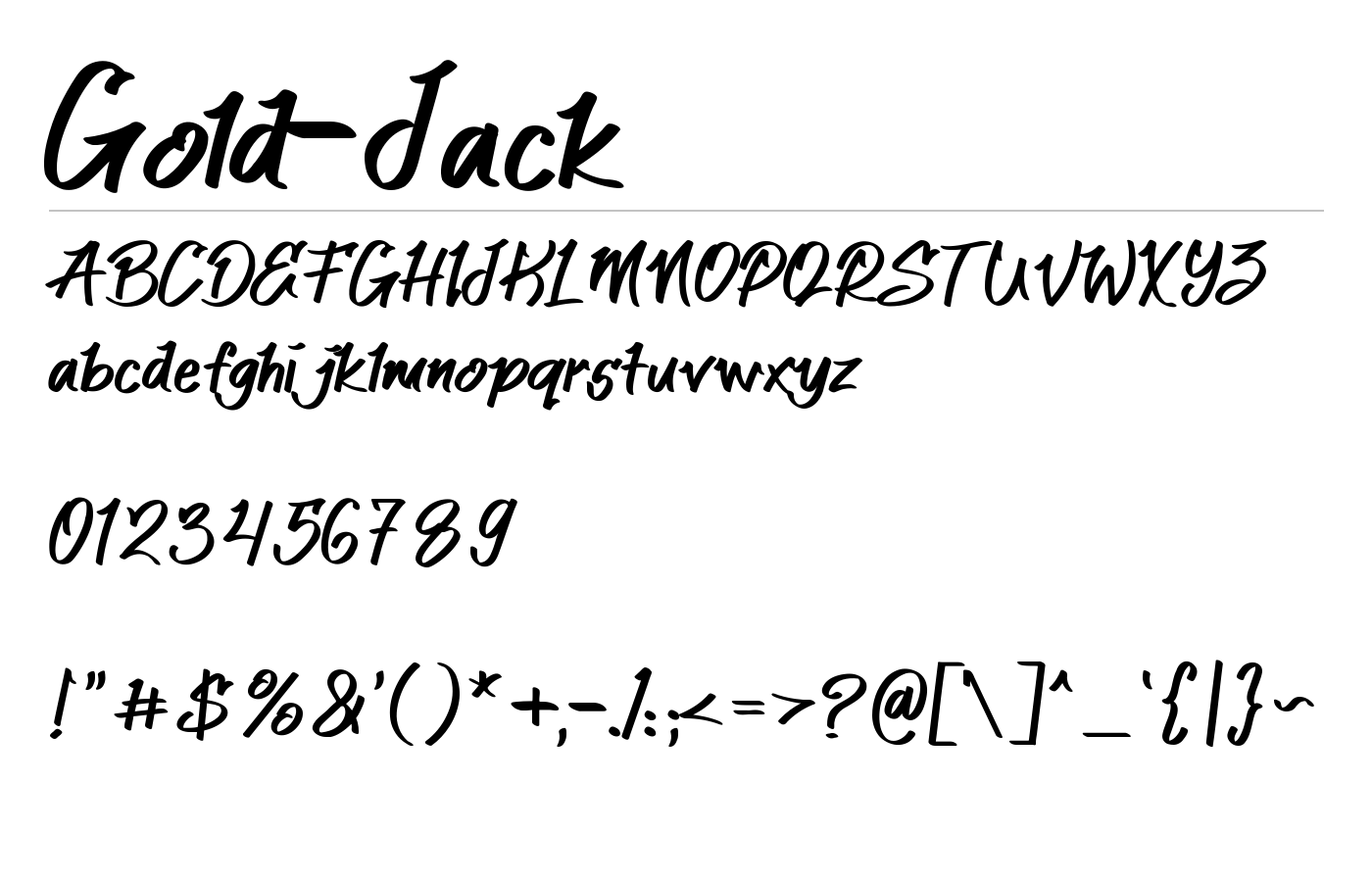
Gold Jack is a lively script font with a casual, hand-painted feel, featuring moderate contrast and smooth, flowing strokes that mimic brush lettering. Its dynamic letterforms, including distinctive single-story 'a' and playful ampersand, bring a friendly and approachable personality perfect for creative branding, invitations, and headlines that need a personal touch. This font works well for projects that want to convey warmth, energy, and artistic flair without feeling overly formal.
Gold Jack Font
About Gold Jack Font